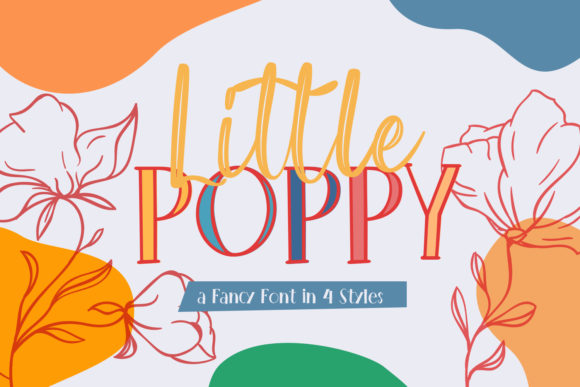
Introducing Little Poppy Font, a whimsical and playful duo font family, meticulously crafted for captivating display designs. This dynamic duo, comprising a classic serif and a vivacious script, is poised to elevate your creative concepts to new heights.
Little Poppy's joyful spirit shines through its meticulously drawn characters, each imbued with an infectious charm that adds a touch of magic to your projects. Whether you're designing logos, posters, invitations, packaging, or social media graphics, this font family promises to transform your ideas into eye-catching masterpieces.
With its infectious charm and eye-catching appeal, Little Poppy is the perfect font family to create unique and memorable designs. Its bold serif and whimsical script harmonize beautifully, creating a visual spectacle that captivates and engages your audience. Ideal for branding, marketing, and personal projects, Little Poppy adds a touch of whimsy, personality, and unforgettable style to your creations.
With Little Poppy as your creative companion, the possibilities are limitless. Dive into the world of bold headlines, captivating logos, alluring social media posts, and engaging website designs that leave a lasting impression. This font family is your gateway to a realm of creativity where imagination knows no bounds.
So, surrender to the enchantment of Little Poppy and embark on a design journey filled with joy, personality, and boundless creativity. Embrace the magic of this remarkable font family and watch your ideas flourish into captivating visual masterpieces.